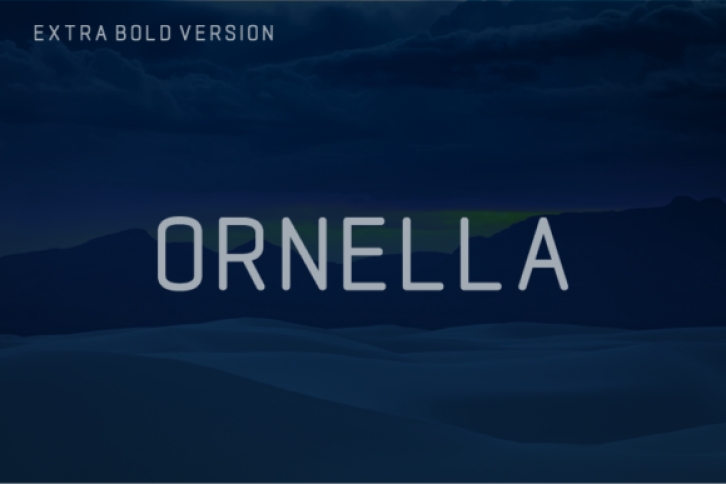
Ornella is a sans serif type family with a friendly and synergetic profile. Designed with rounded forms, low contrast, and a distinctive techie feel, Ornella is a highly legible typeface suited for any text application and typographic reproduction.